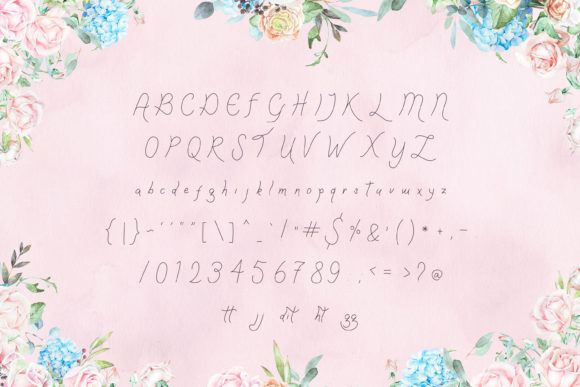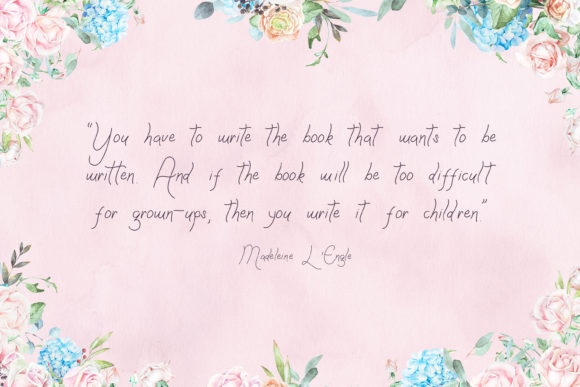
Introducing Aggatta Font: The Perfect Handwritten Touch for Your Designs
In the world of typography, few fonts manage to capture the essence of elegance and sophistication as beautifully as Aggatta. This incredibly distinct, delicate, and timeless handwritten font has taken the design community by storm, and for good reason. Aggatta is the perfect addition to any design project that requires a touch of personality and refinement. Whether you’re working on wedding invitations, thank you cards, quotes, greeting cards, logos, business cards, or any other design that needs a handwritten touch, Aggatta is the ideal choice.
The Unique Characteristics of Aggatta Font
Aggatta’s unique charm lies in its delicate and intricate strokes, which give it a distinctly handmade feel. The font’s letters are carefully crafted to exude a sense of elegance and sophistication, making it perfect for designs that require a touch of luxury. The fluidity of Aggatta’s strokes and the subtle variations in line width create a sense of movement and energy, adding a dynamic touch to any design.
Why Designers and Crafters Love Aggatta Font
Designers and crafters alike have fallen in love with Aggatta font for several reasons:
- Versatility: Aggatta is an incredibly versatile font that can be used in a wide range of design projects, from wedding invitations and greeting cards to logos and business cards.
- Elegance: Aggatta’s delicate and intricate strokes add a touch of elegance and sophistication to any design, making it perfect for projects that require a luxurious feel.
- Readability: Despite its intricate strokes, Aggatta is surprisingly easy to read, making it perfect for designs that require a clear and legible font.
- Uniqueness: Aggatta’s unique characteristics set it apart from other fonts, making it a great choice for designers who want to create something truly unique and eye-catching.
How to Use Aggatta Font in Your Designs
Using Aggatta font in your designs is easy and straightforward. Here are a few tips to get you started:
- Pair it with other fonts: Aggatta pairs beautifully with other fonts, especially sans-serif fonts. Try pairing it with a clean and simple font to create a striking contrast.
- Experiment with colors: Aggatta looks stunning in a range of colors, from soft pastels to rich jewel tones. Experiment with different colors to find the perfect combination for your design.
- Play with sizes: Aggatta can be used in a range of sizes, from large headings to small body text. Experiment with different sizes to create visual interest and hierarchy in your design.
Examples of Aggatta Font in Action
Aggatta font has been used in a wide range of design projects, from wedding invitations and greeting cards to logos and business cards. Here are a few examples of Aggatta in action:
- Wedding invitations: Aggatta font is a popular choice for wedding invitations, adding a touch of elegance and sophistication to any design.
- Greeting cards: Aggatta font is perfect for greeting cards, adding a personal and handmade touch to any design.
- Logos: Aggatta font can be used to create stunning logos that are both elegant and sophisticated.
- Business cards: Aggatta font is a great choice for business cards, adding a touch of personality and refinement to any design.
In conclusion, Aggatta font is a timeless and elegant handwritten font that is perfect for designers and crafters who want to add a touch of sophistication and refinement to their designs. With its unique characteristics, versatility, and readability, Aggatta is an excellent choice for a wide range of design projects. Whether you’re working on wedding invitations, greeting cards, logos, business cards, or any other design that needs a handwritten touch, Aggatta font is sure to impress.